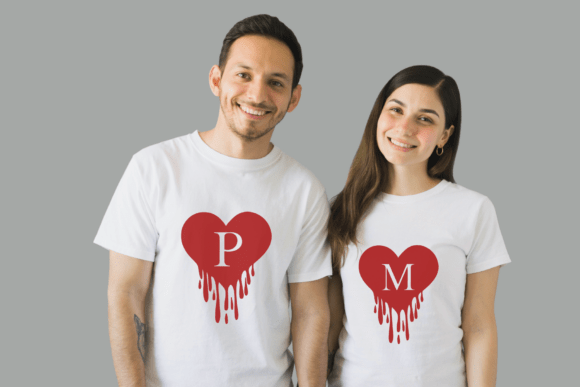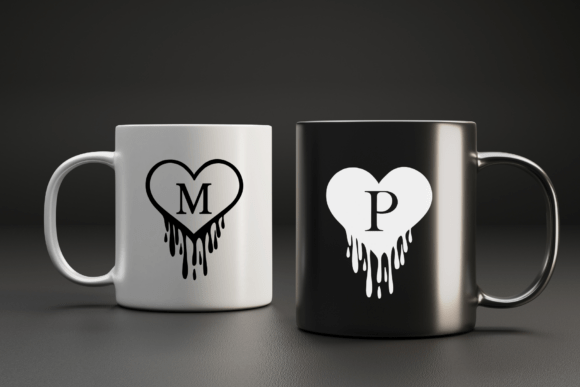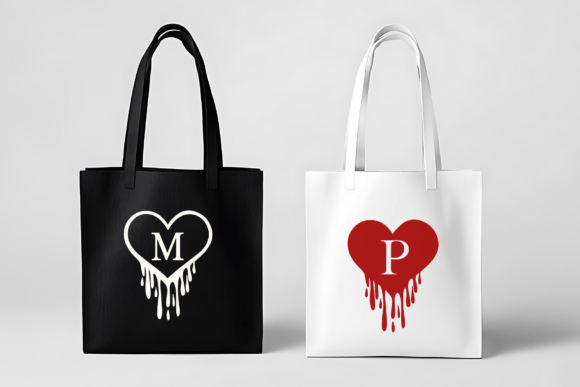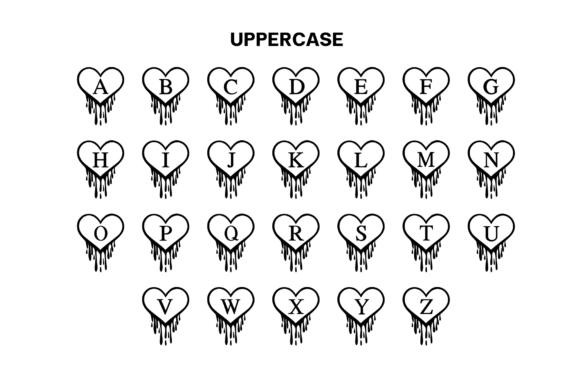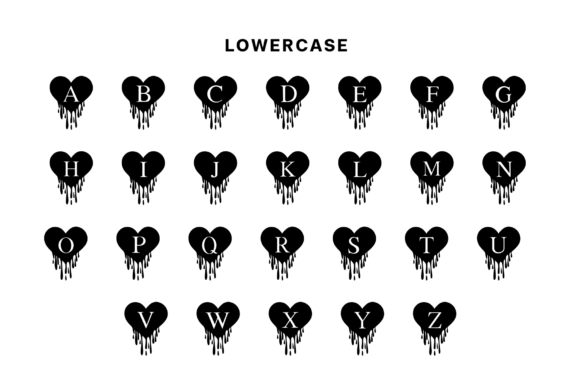
Introduction to Halloween Love Font
Halloween Love Fon t is a spooky-sweet decorative display that marries horror and romance.
Bold letterforms ooze with dripping heart details, while optional heart frames turn words into little emblemsโ€”perfect for titles that need fright with a flirt The shapes are chunky and legible at poster scale and thumbnail size, inviting solid fills, gradients, and glow effects.
Key Features of Halloween Love Font
Why Choose Halloween Love Font?